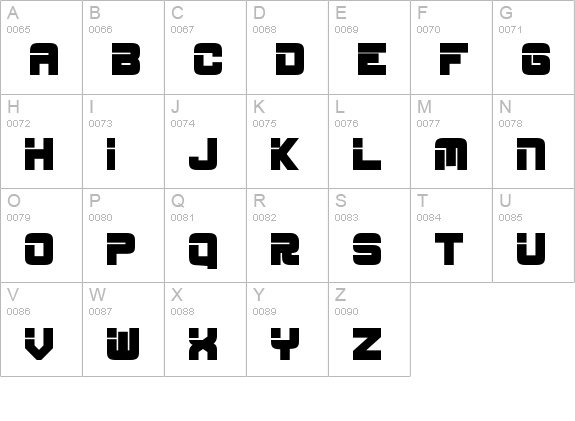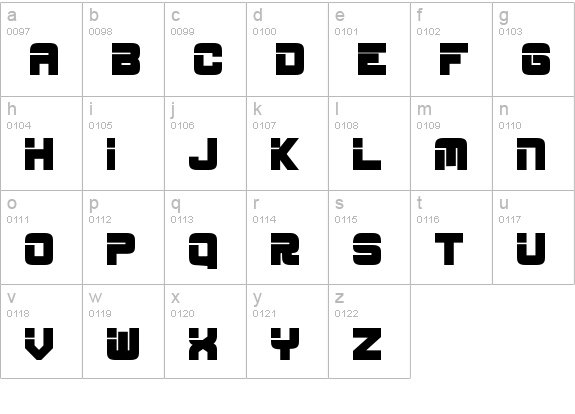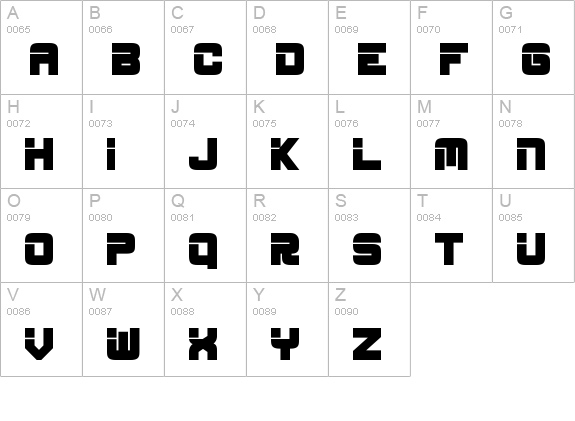
ESP_Bold Font Details
Introducing ESP_Bold font, a modern and stylish typeface that exudes confidence and sophistication. With its bold and eye-catching design, ESP_Bold font is perfect for making a statement and standing out from the crowd. Whether you're designing a poster, logo, or branding materials, this versatile font is sure to make a lasting impression. What's even better is that ESP_Bold font is available for free download at FontsMarket.com. Yes, you read that right - this premium font can be yours at no cost, so you can elevate your projects without breaking the bank. Don't miss out on the opportunity to add ESP_Bold font to your collection and take your designs to the next level. Download it today and let your creativity shine!